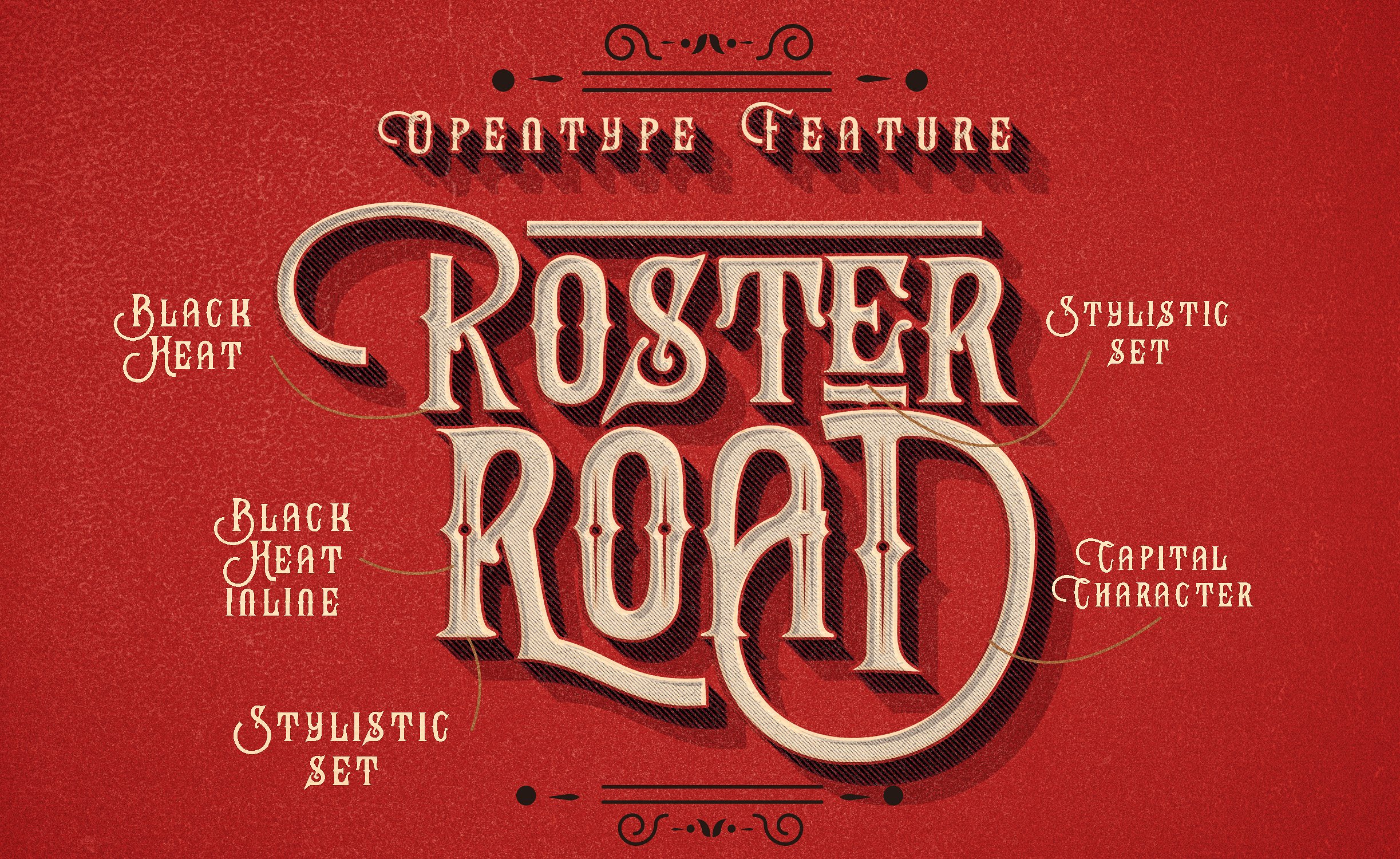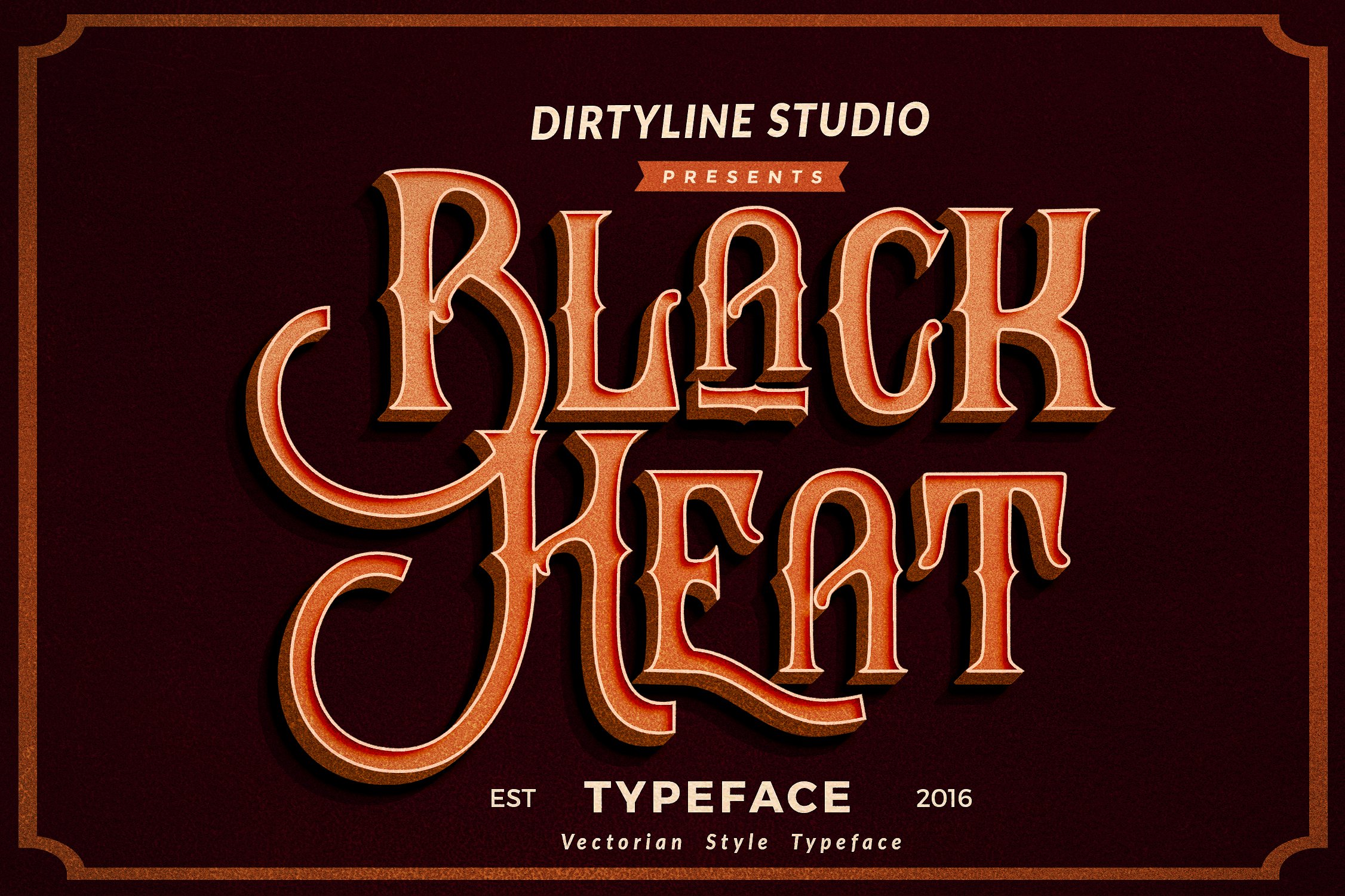
Black Heat Font
Black Heat – a modern vintage typeface style with decorative characters and a dancing baseline! So beautiful on invitation like greeting cards, branding materials, business cards, quotes, posters, and more!